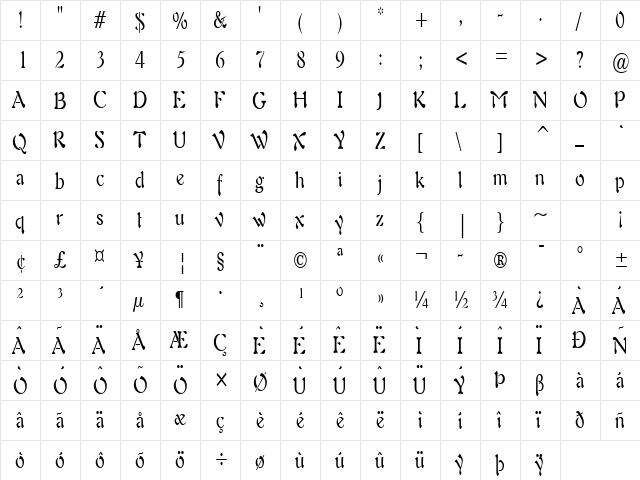
Freedom 9 Thin Normal
Design Context for Freedom 9 Thin Typeface
Freedom 9 Thin is a composed and adaptable typeface that performs quietly and consistently across a wide range of design contexts. Its slender proportions lend an understated elegance to any composition.